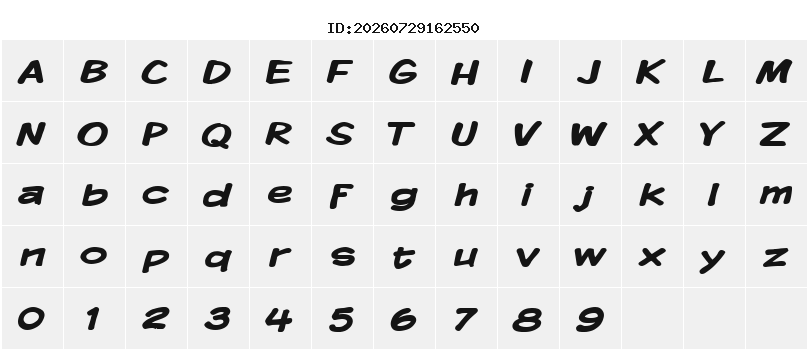
Komika Display Wide Preview
• Font Name: Komika Display Wide
• Full Font Name: Komika Display Wide Bold
• Designer: WolfBainX
About Komika Display Wide.ttf
Komika Display Wide.ttf is a modern, elegant sans-serif font designed for ultimate readability and visual harmony. Perfect for branding, headlines, web design, and print materials.